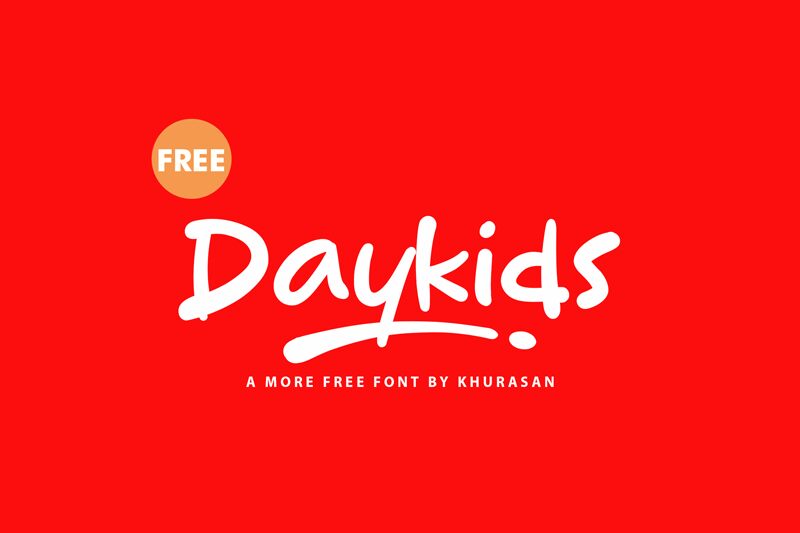
Daykids
Daykids, designed by Khurasan, is a semi-bold handwritten font that exudes charm and personality. Its semi-expanded width offers a friendly presence on the page, while the organic flow of its letters captures the spontaneity of hand-crafted lettering. The aesthetic appeal of Daykids lies in its ability to convey warmth and approachability, making it an excellent choice for projects that require a personal touch.
From branding to editorial design, Daykids has versatility at its heart. It stands out in contexts where a sense of individuality and informality is desired without sacrificing readability. Whether it's used for invitations, greeting cards, or whimsical advertising campaigns, this font has potential to add a playful yet polished element to your creative work.
With Daykids, you get more than just type; you get the character and authenticity that can elevate your designs with its distinctive handwritten style.